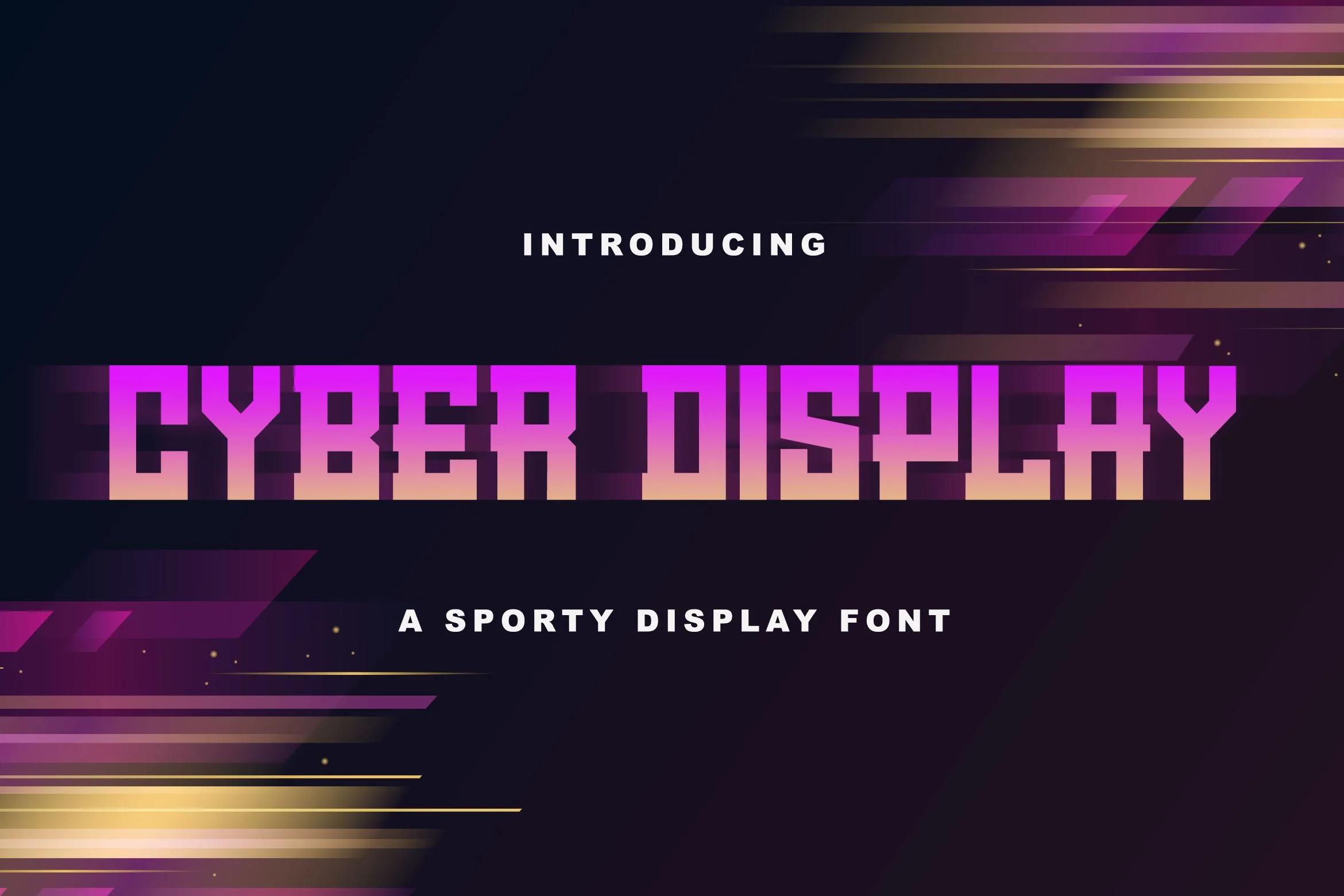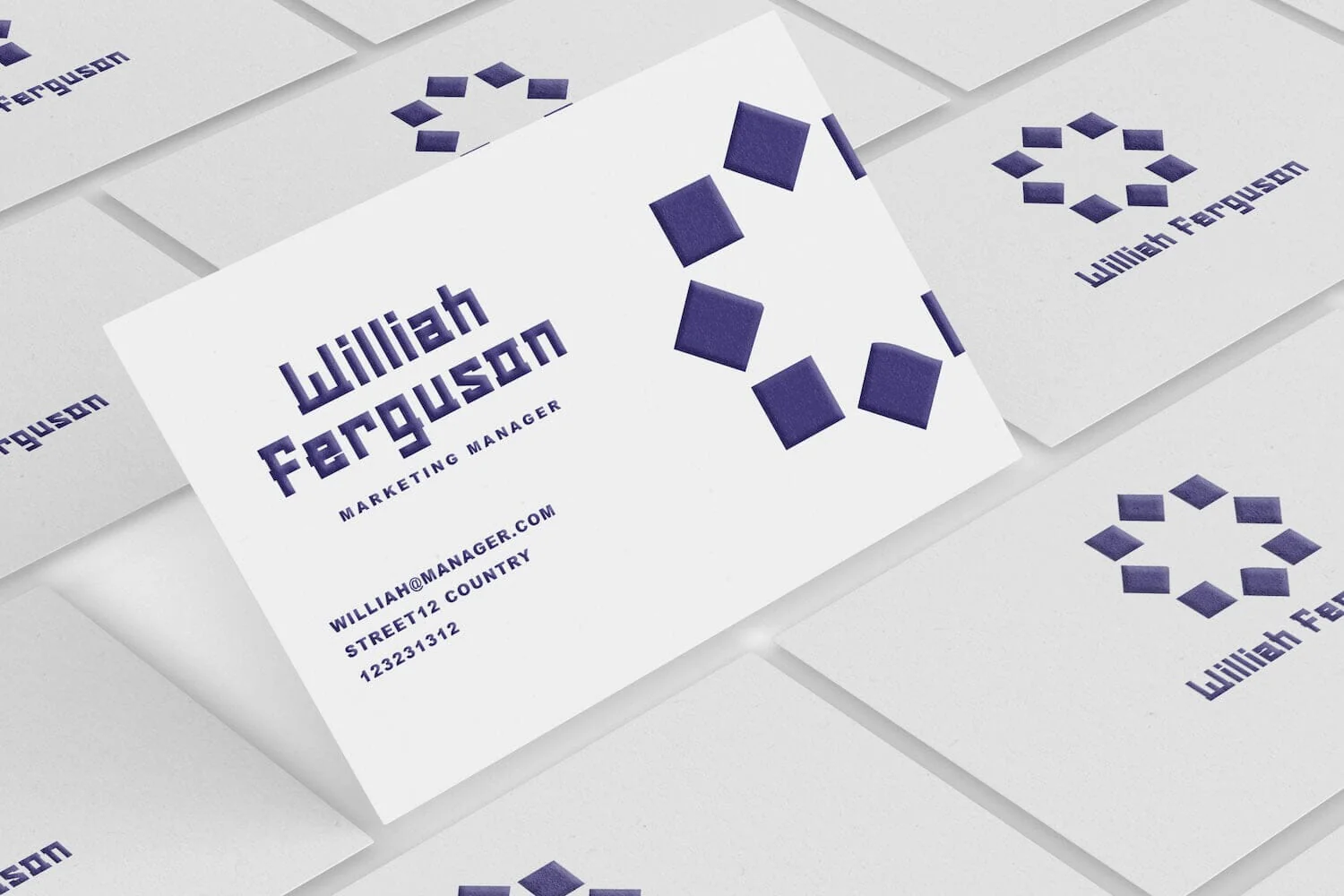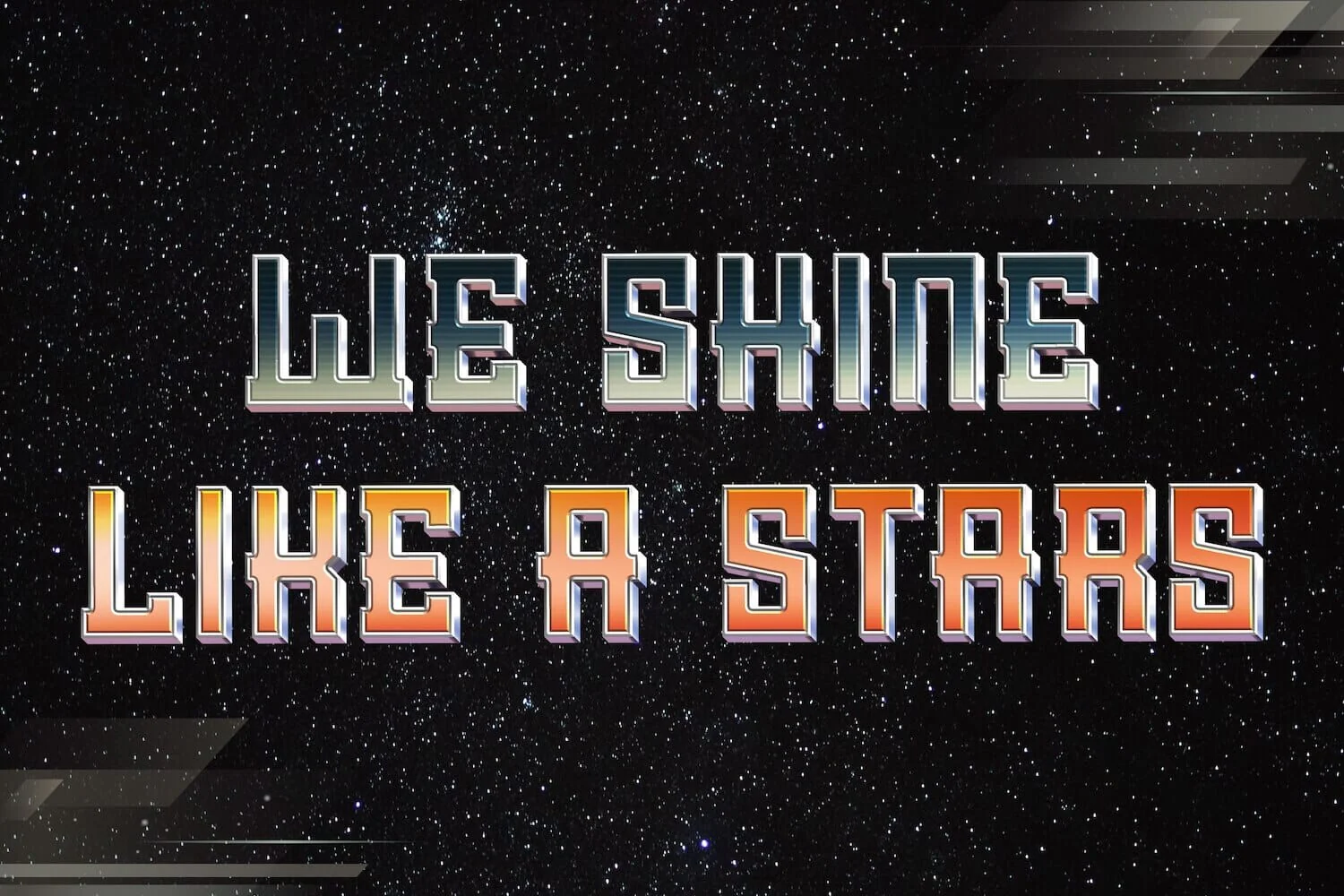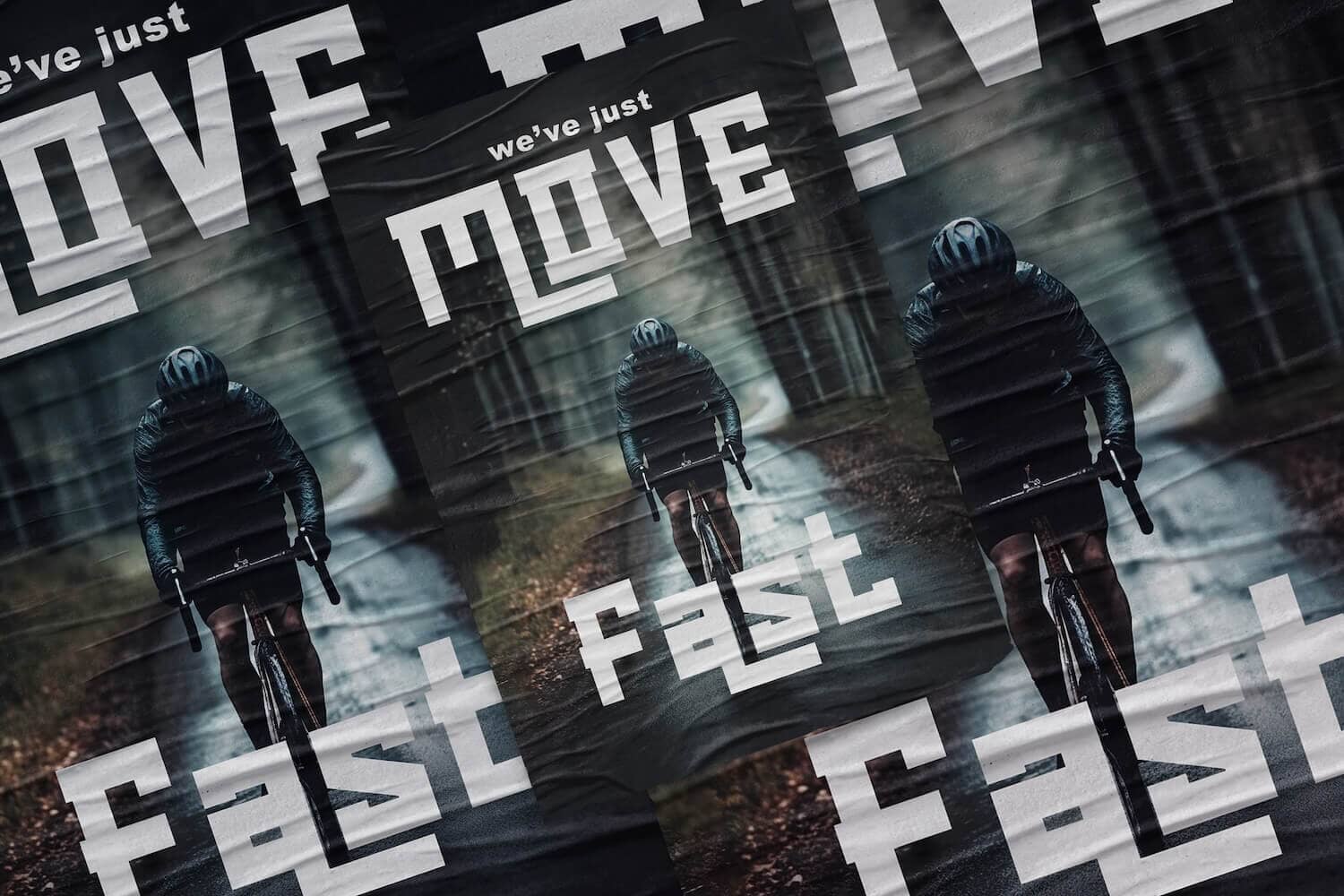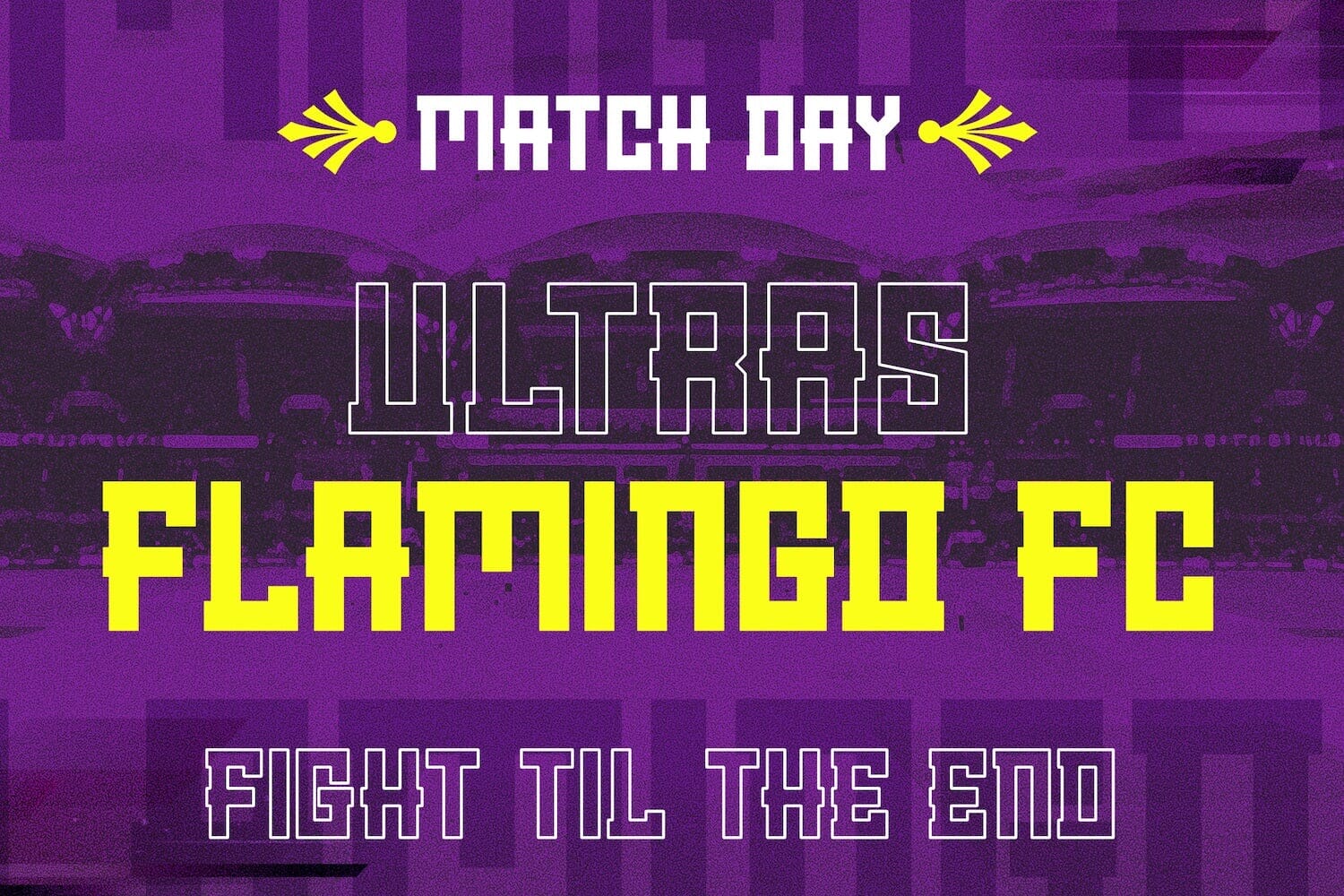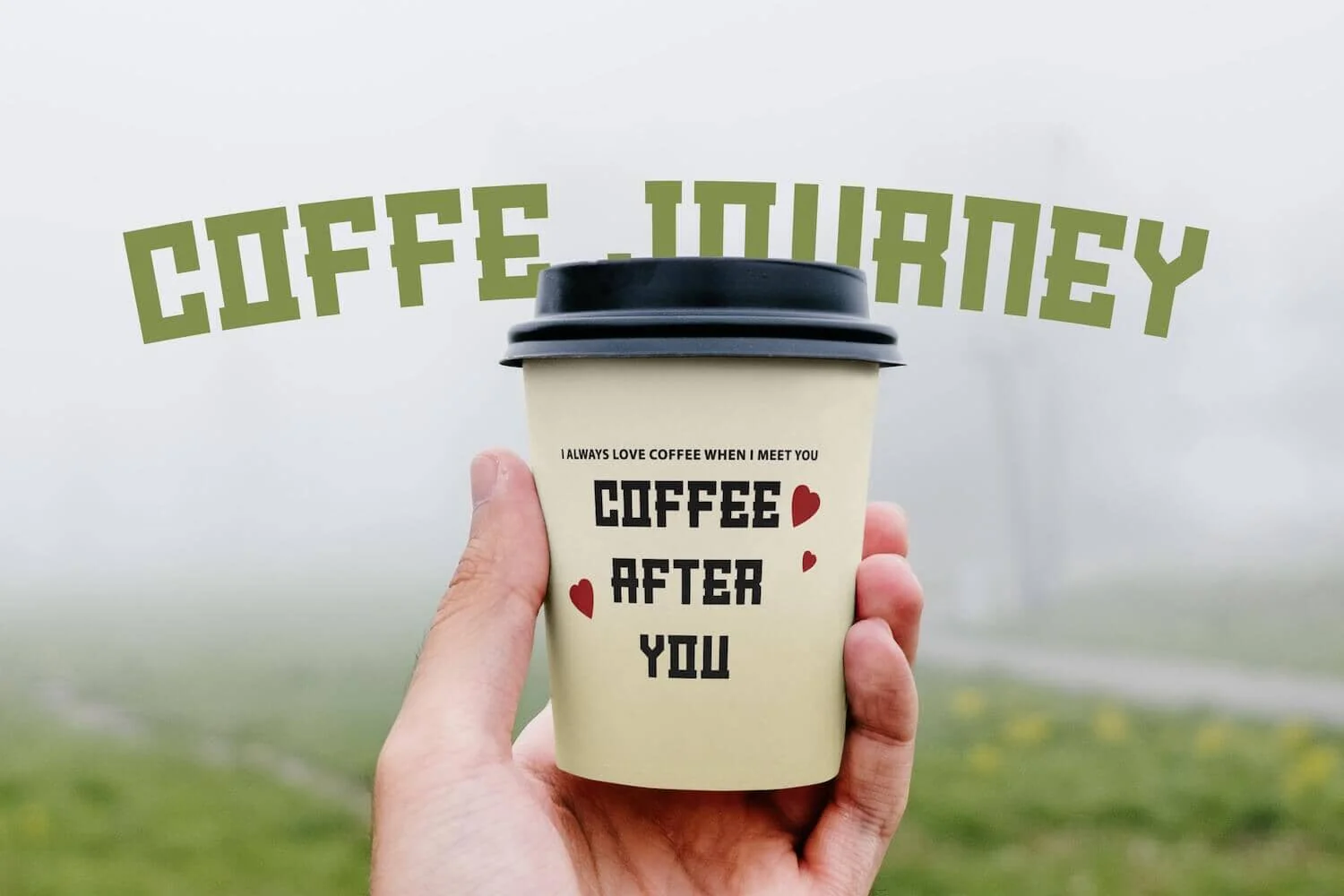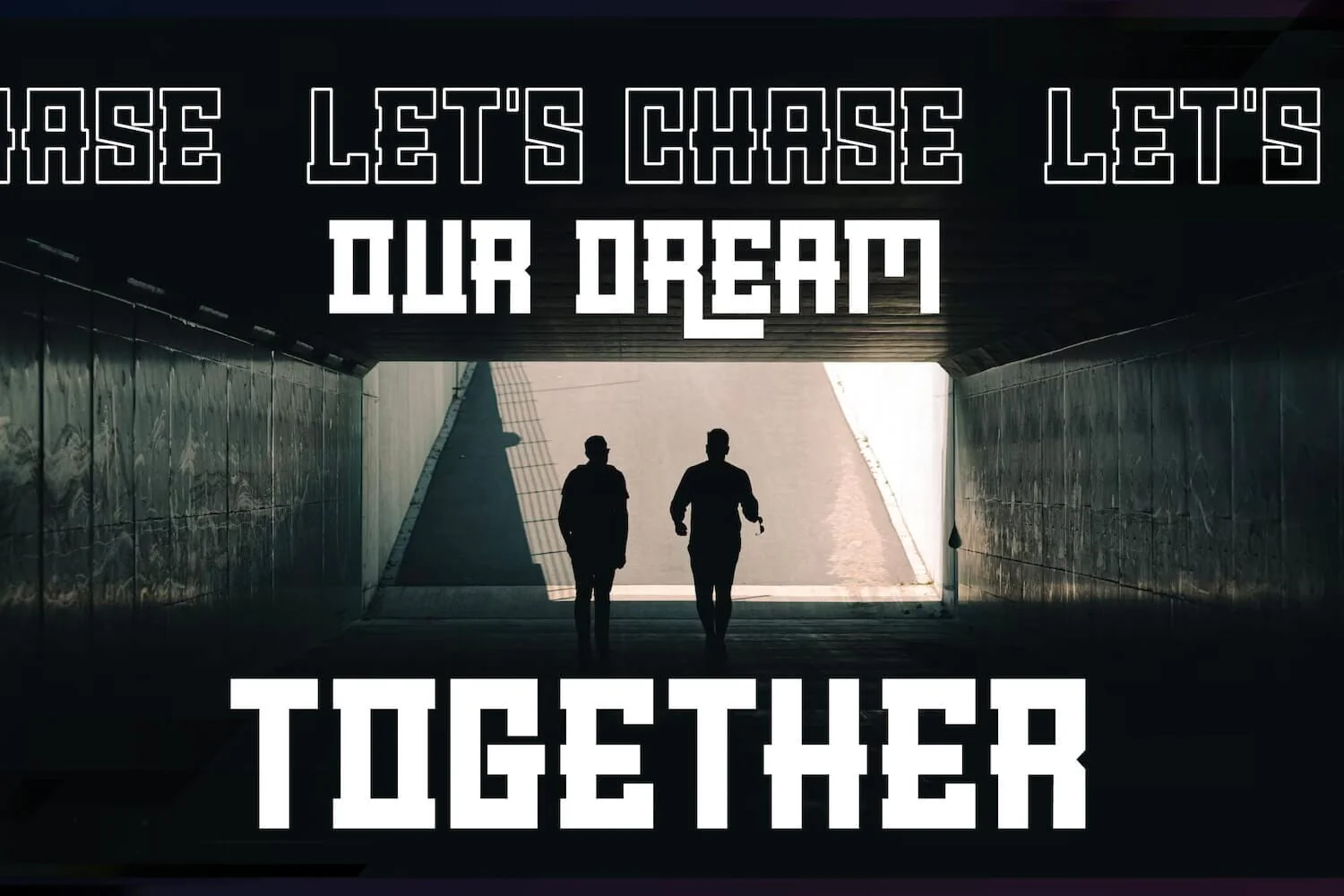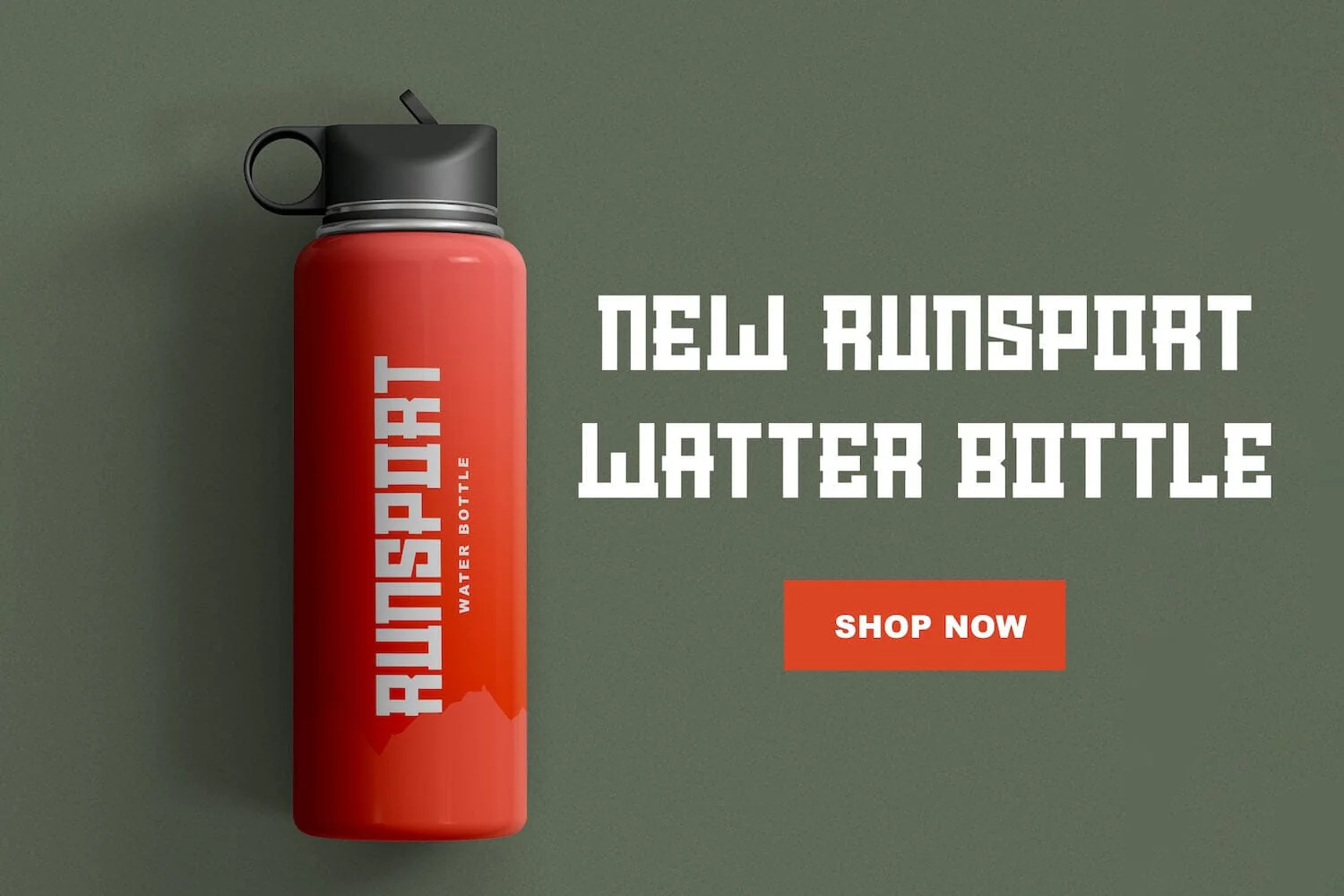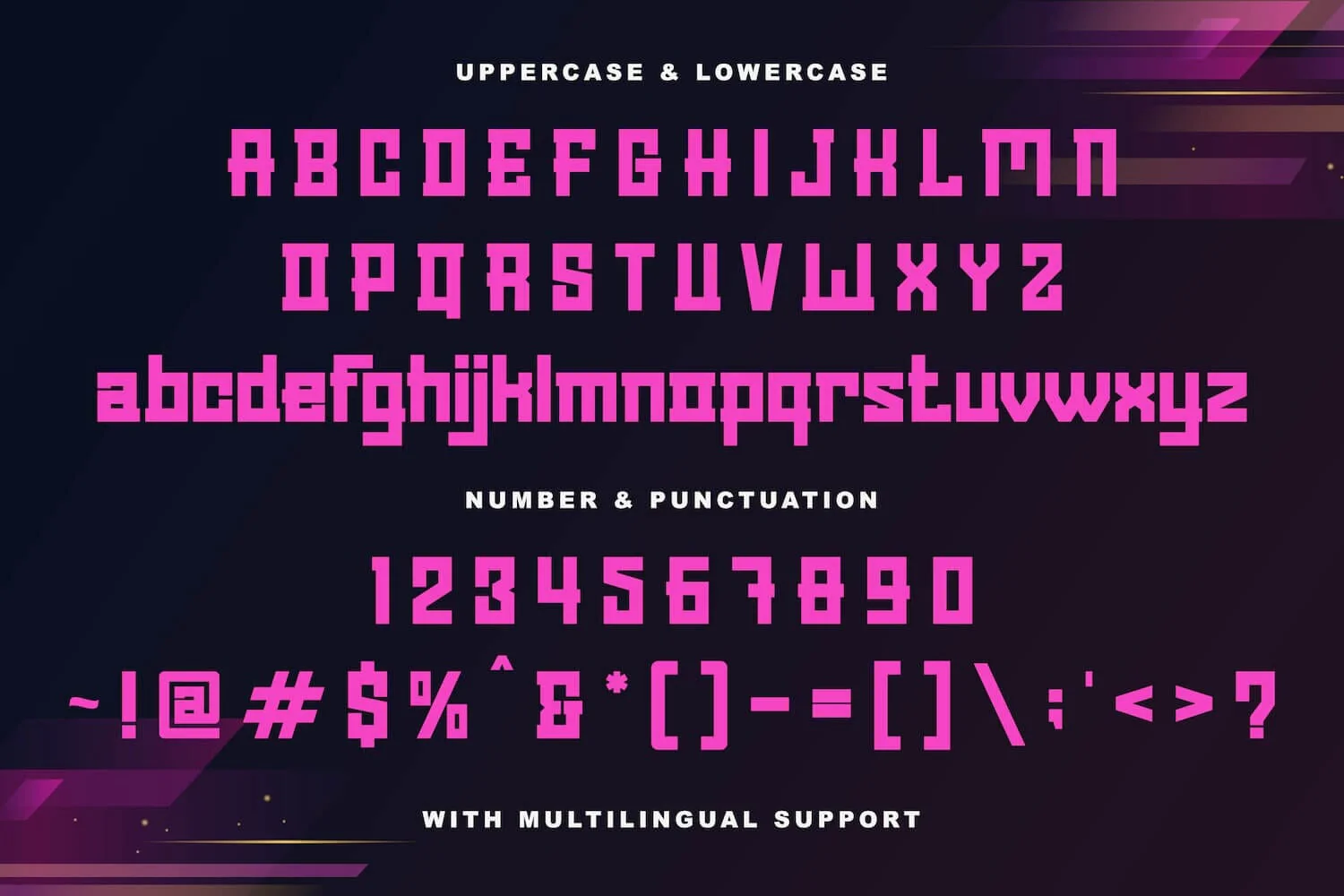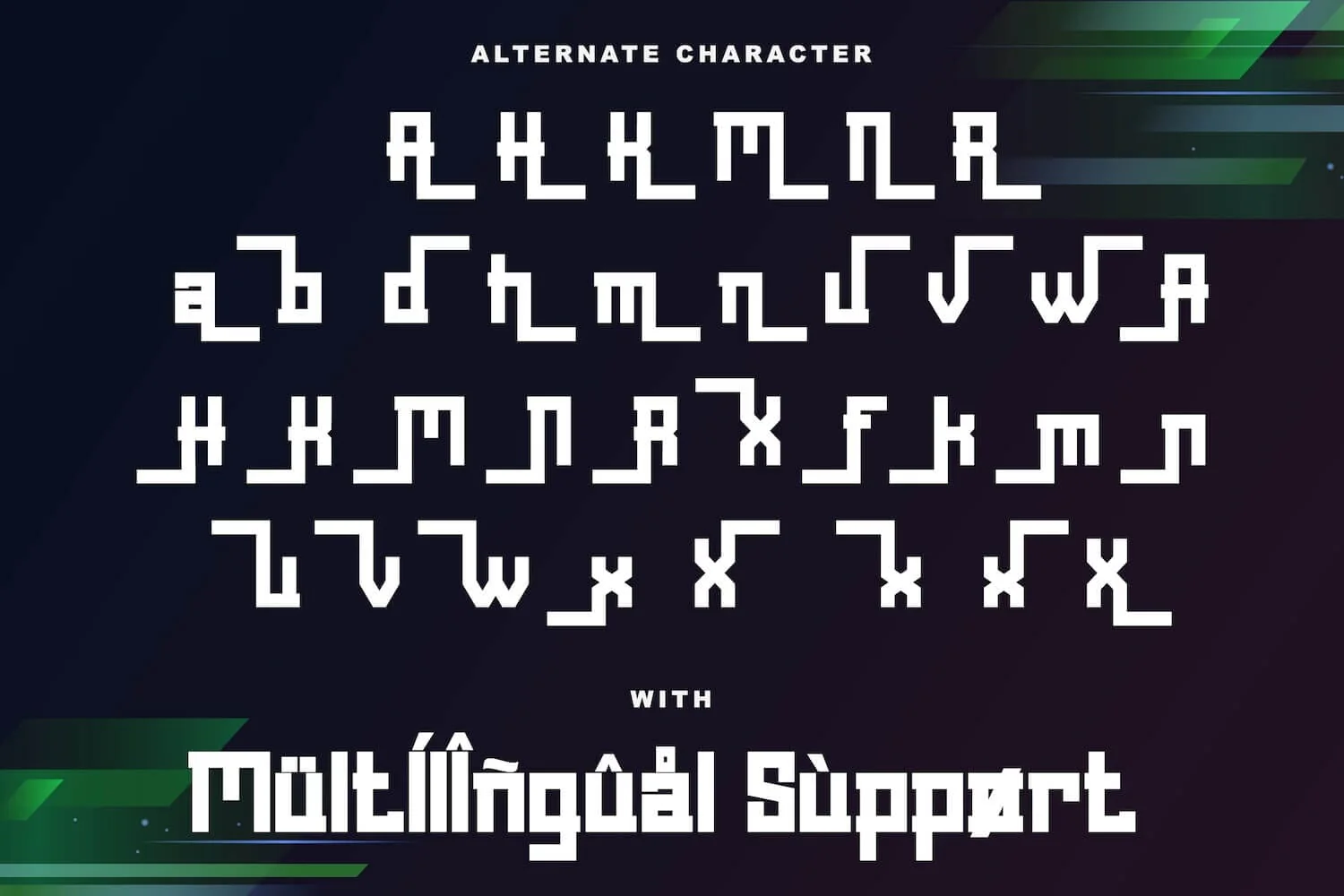
Cyber Display - Modern Sporty Font
Introducing Cyber Display - Modern Sporty Font
Cyber Display is a sporty and modern display font. This playfully conceptual typeface font will look truly outstanding in a wide range of contexts. This font is very suitable for your any sports needs.